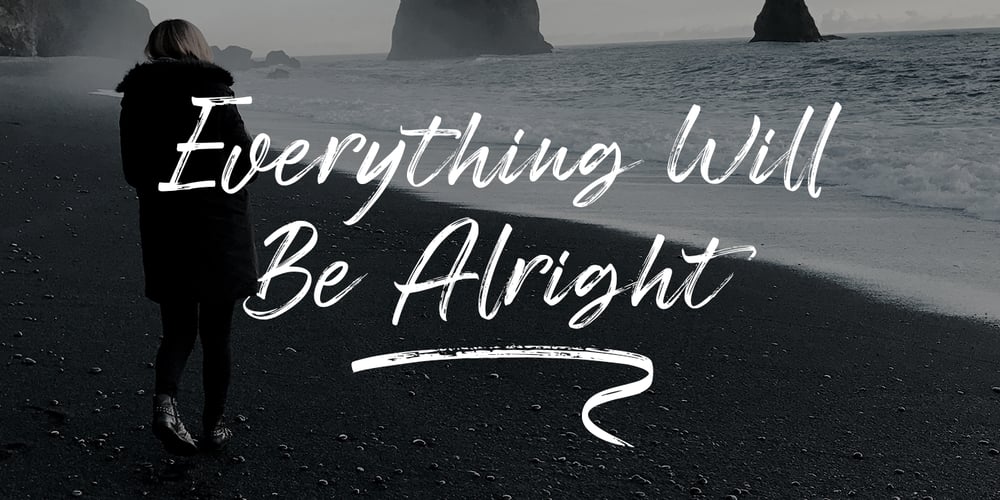
Freshline Font Family was designed by M Akmal and published by Mega Type. Freshline contains 2 styles and family package options. Freshline is a textured brush font, a contemporary approach to design, handmade with an irregular baseline. Suitable for use in title design such as apparel, invitations, book tittles, stationery design, quotes, branding, logos, greeting cards, t-shirts, packaging design, posters and more. Freshline includes a complete set of uppercase and lowercase letters, as well as multi-language support, numbers, punctuation, ligatures, alternatives and extra swash. If you have any question, don’t hesitate to contact me by email : megatype04@gmail.com Thanks so much for looking and Enjoy it!